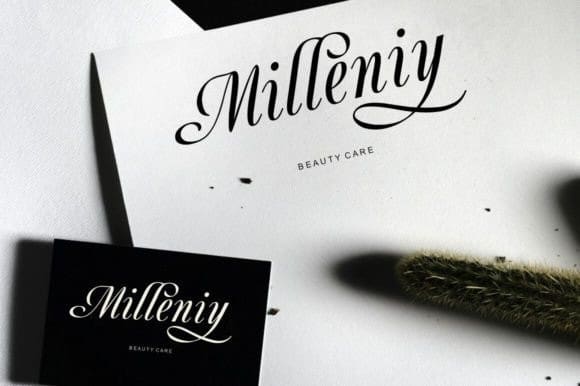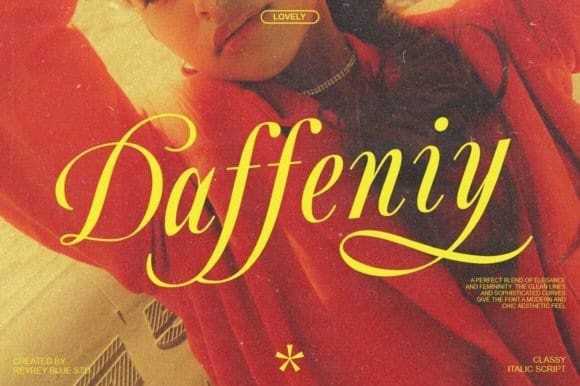
Daffeniy Calligraphy Font
Daffeniy Calligraphy Font, an authentic italic calligraphy font. A perfect blend of elegance and femininity with beautiful flow characters. It can shine with luxury. This type of font is perfectly made to be applied especially in logos, headlines, signage, and other various formal forms such as invitations, labels, logos, magazines, books, greeting/wedding cards, packaging, fashion, makeup, stationery, novels, labels, or any advertising purpose.